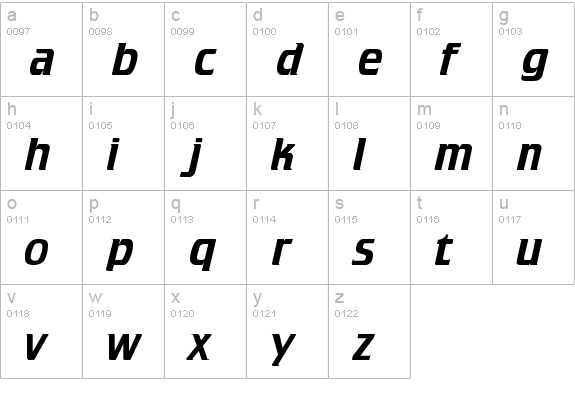
Crill Font Details
Introducing the exquisite Crill font, a versatile typeface that effortlessly combines elegance and modernity. Its sleek lines and stylish curves make it perfect for a wide range of design projects, from branding to editorial design. The Crill font is a timeless choice that will elevate any creative endeavor. And the best part? Crill font is available for free download at FontsMarket.com. This means you can easily access this stunning font to enhance your designs without any cost. Don't miss out on the opportunity to add the Crill font to your font collection and bring your projects to the next level.